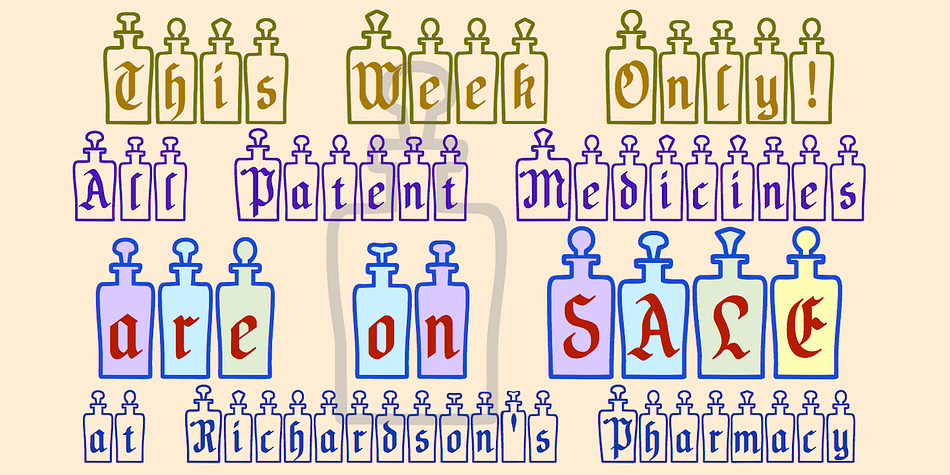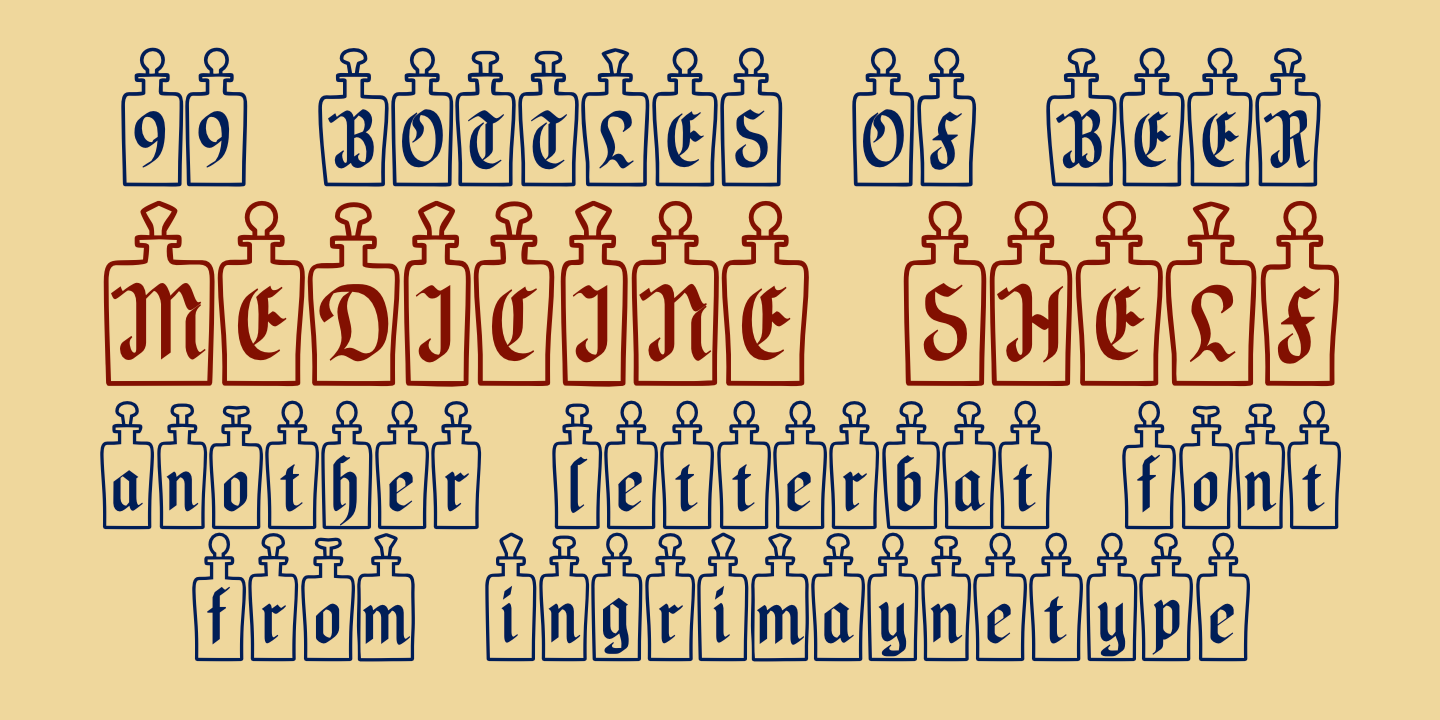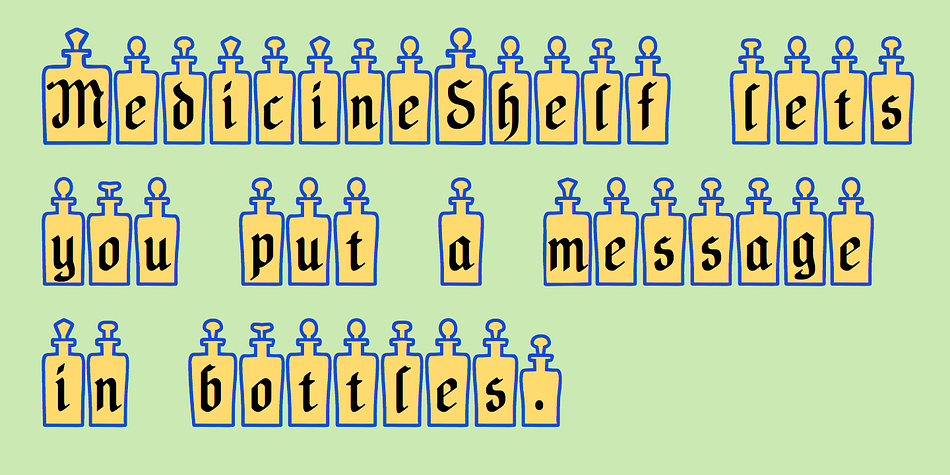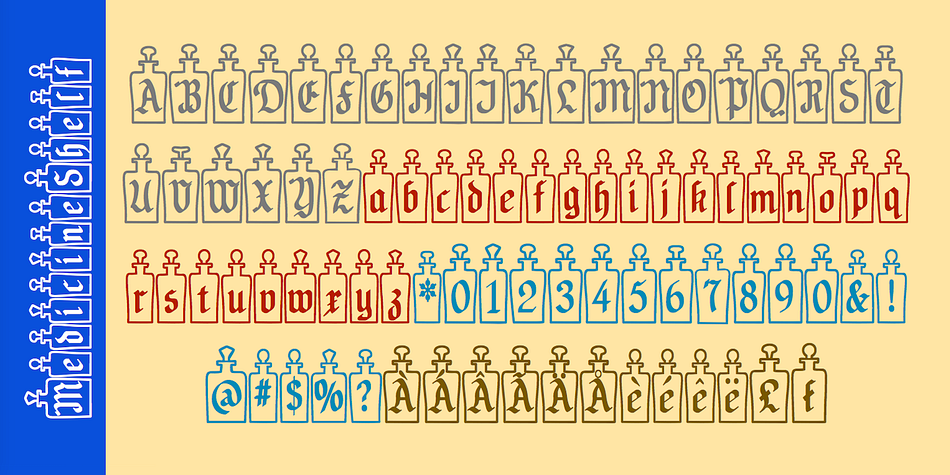
Designed by Robert Schenk, MedicineShelf is a multiple classification font family. This typeface has three styles and was published by Ingrimayne Type.
MedicineShelf has old-fashioned looking letters on old-fashioned looking bottles. The letters are taken from the typeface NeuAltisch. The MedicineShelf-Blank and MedicineShelf-Outline styles are designed tp be used in layers with the base MedicineShelf font to increase the coloring possible with this typeface